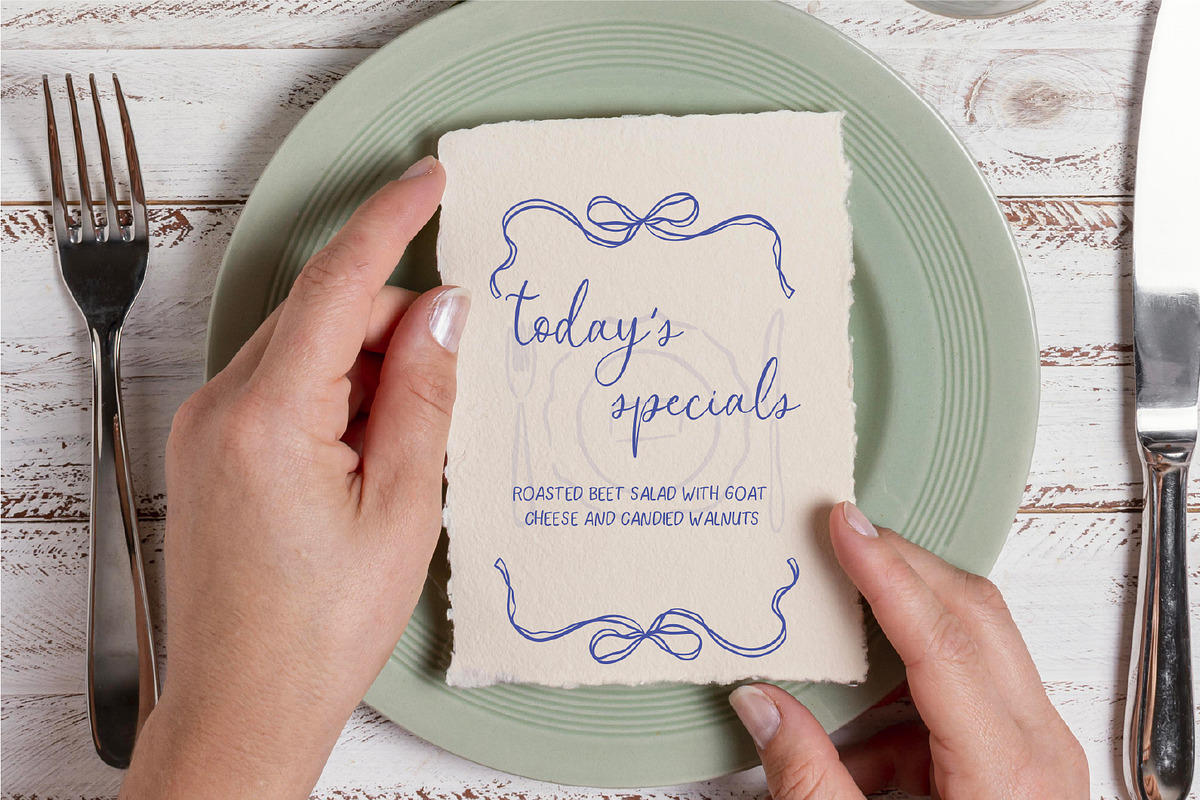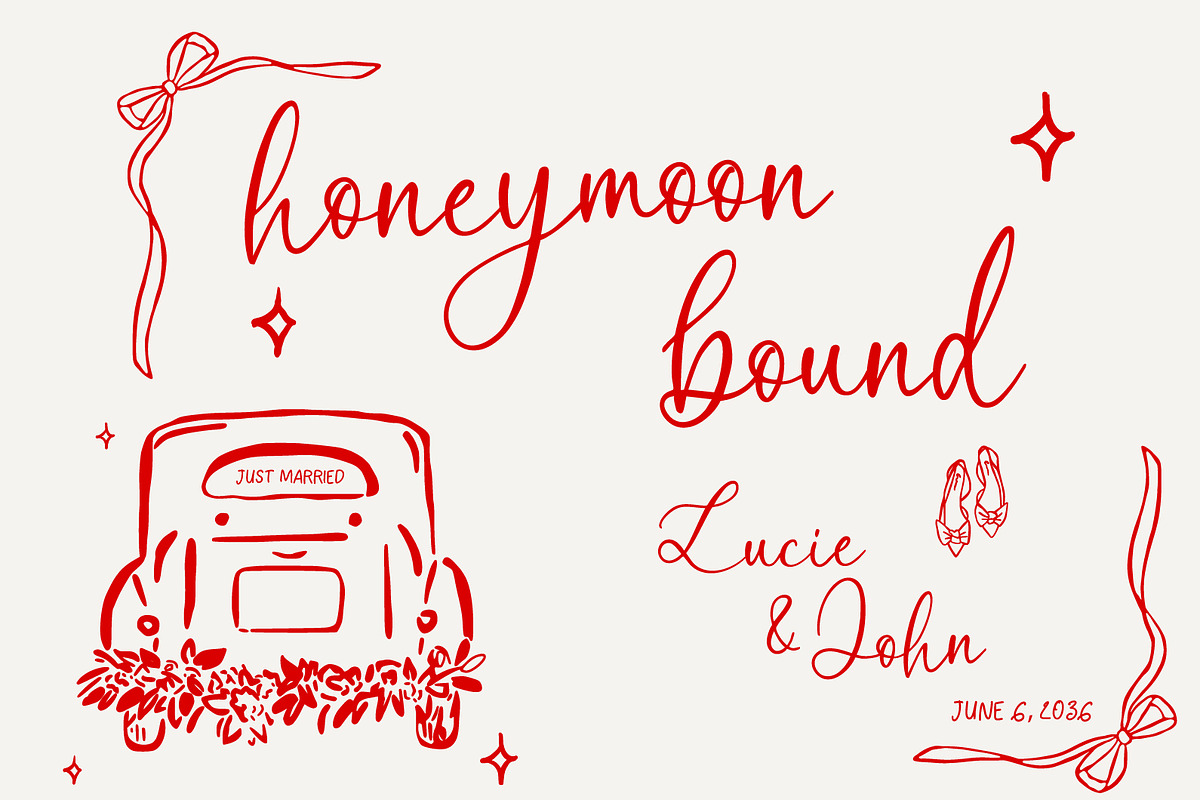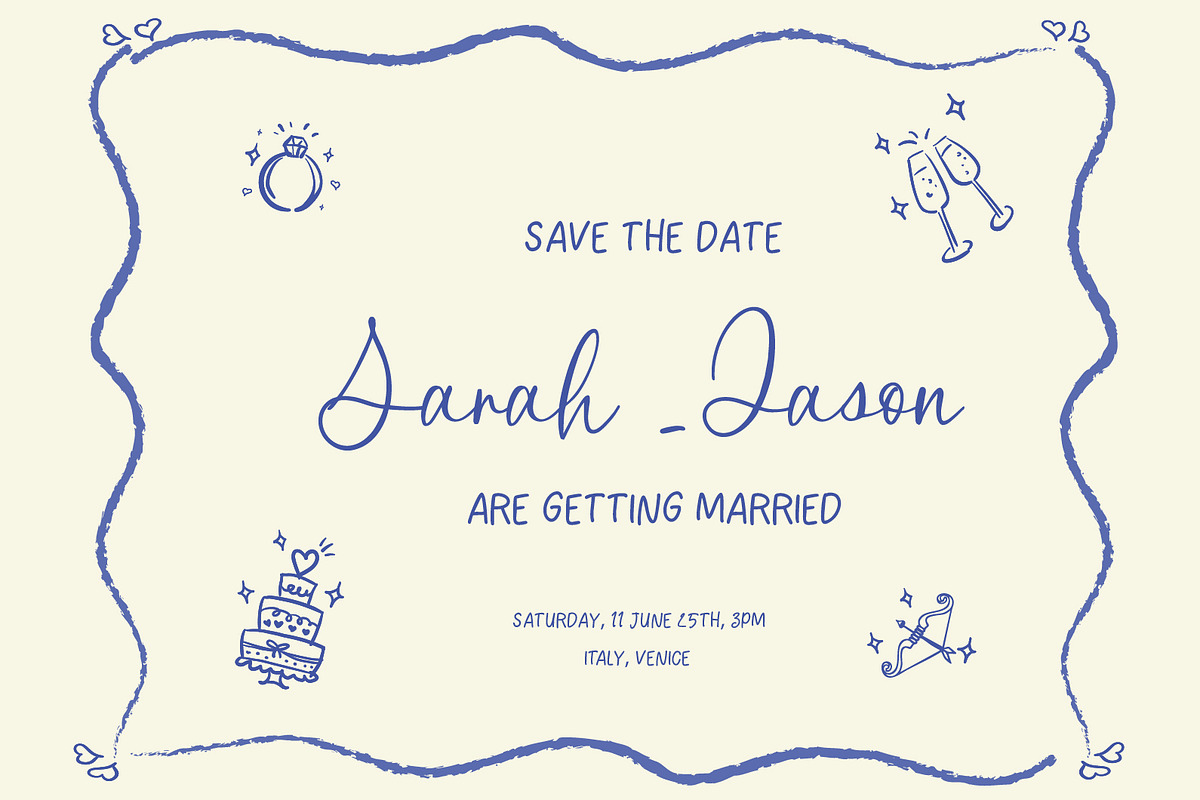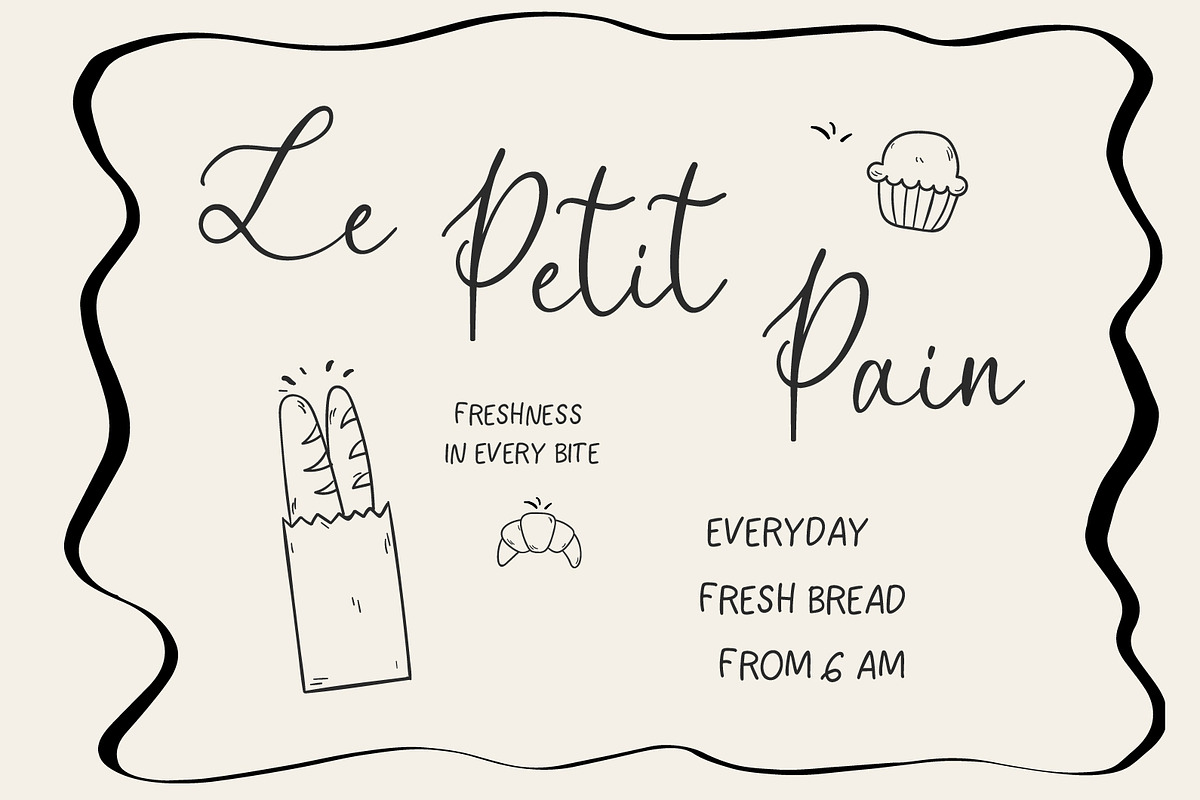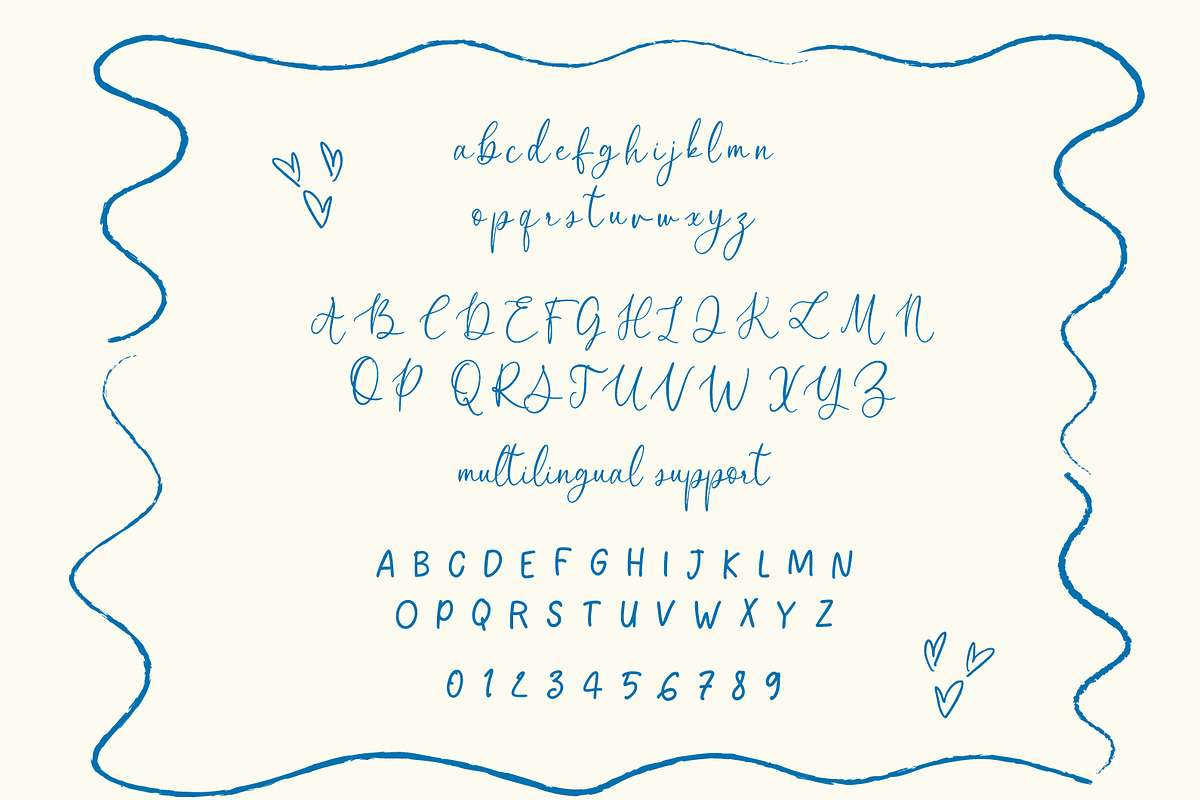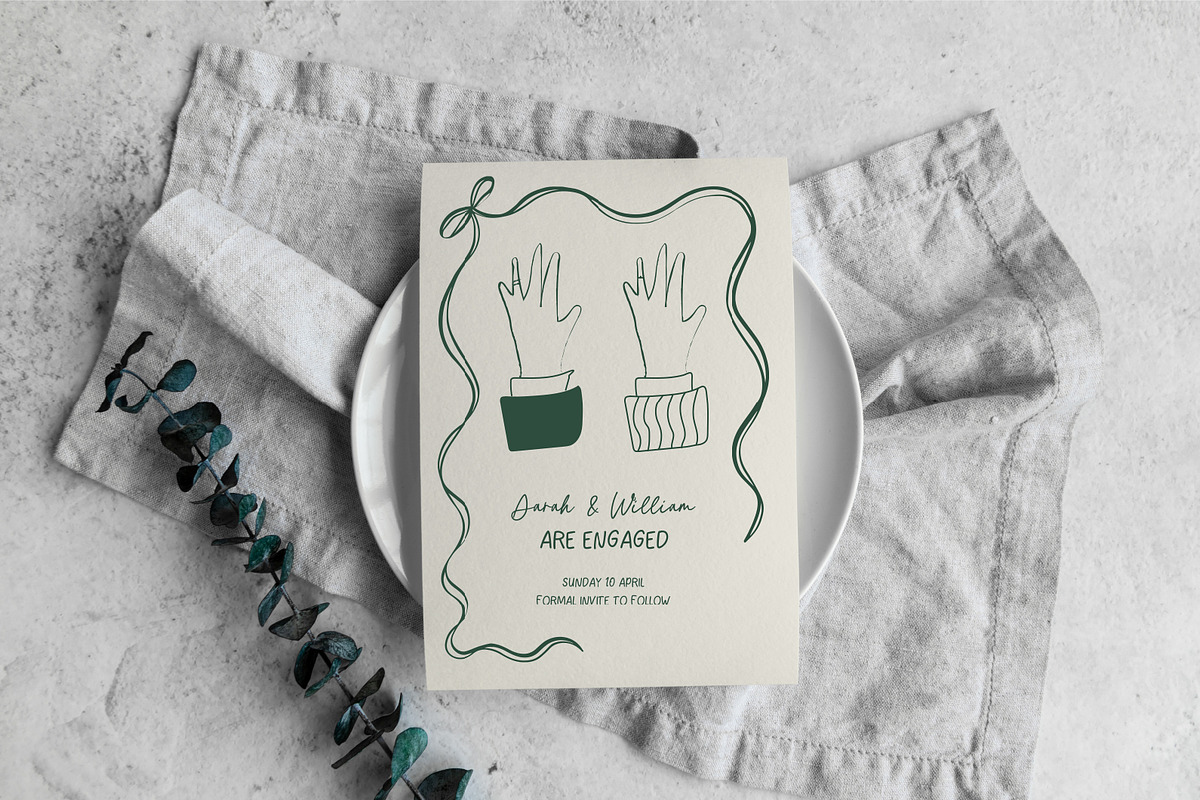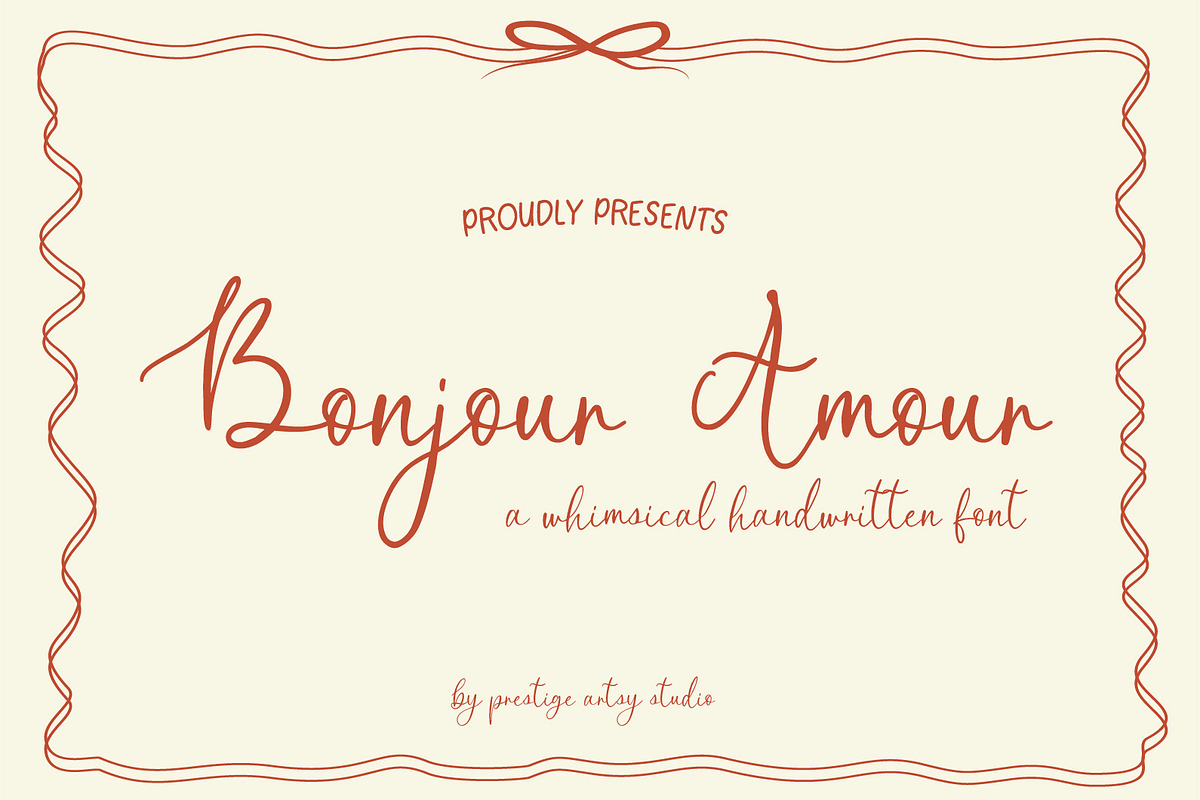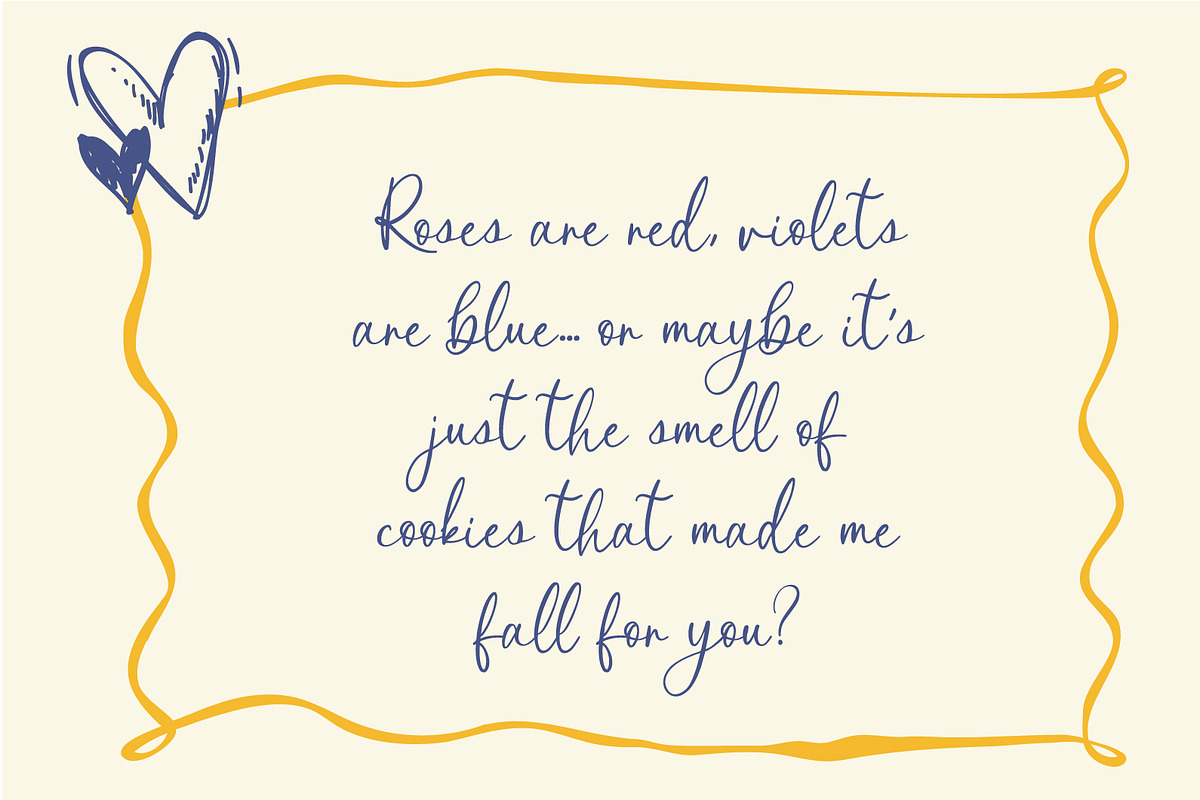
Bonjour Amour — A Whimsical Font
✨ Bonjour Amour ✨
Bring a touch of magic to your designs with Bonjour Amour! This font family includes two sans styles and one playful script, giving you versatile options to mix and match for any project. Its charming, handwritten feel makes it perfect for invitations, greeting cards, logos, posters, quotes, and DIY crafts.
Designed to add warmth and personality, it’s ideal for Cricut projects, Procreate lettering, Canva designs, scrapbooking, and digital downloads, and works beautifully for both personal and commercial use.
Whimsical quotes & wall art
Cute branding & logos
Wedding invitations & cards
Retro & playful posters
Crafting with Cricut or Silhouette